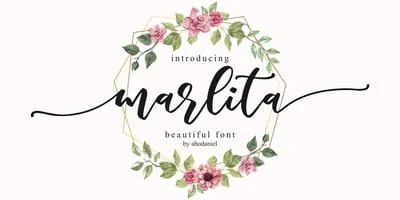
Marlita Font
This elegant script font is perfect for luxury fashion branding, high-end beauty product packaging, sophisticated wedding stationery, premium jewelry marketing, upscale boutique signage, refined cosmetics campaigns, exclusive event invitations, and graceful design projects that celebrate timeless femininity and aristocratic charm.
Marlita Font is exciting because it embodies refined elegance with its graceful letterforms that flow like silk ribbons touched by moonlight. The font delivers sophisticated femininity while maintaining luxurious readability that speaks to discerning tastes and elevated standards.
The Marlita Font family includes regular and ornamental versions with decorative swashes, elegant flourishes, and luxury ornaments, providing designers with comprehensive tools for creating enchanting typography that captivates with aristocratic grace.
Ready to embrace luxurious femininity? Marlita Font offers designers flowing letterforms that dance with sophisticated elegance and refined beauty. This captivating typeface combines luxury aesthetics with professional functionality, making it ideal for high-end fashion houses, luxury beauty brands, and exclusive lifestyle companies. Whether you're designing premium fashion campaigns, luxury wedding invitations, or upscale beauty product packaging, this font delivers aristocratic appeal. The luxuriously scripted characters feature elegant curves while maintaining excellent readability across premium applications. Perfect for businesses in luxury fashion, high-end beauty, exclusive jewelry, and sophisticated lifestyle sectors that celebrate refined taste and elegant femininity. The font's aristocratic construction creates memorable brand recognition that resonates with luxury consumers worldwide. Each letter showcases deliberate grace that mirrors the timeless appeal of sophisticated elegance. Download today and elevate your creative projects with this premium script font that transforms ordinary text into extraordinary expressions of luxury beauty and the enchanting sophistication of Marlita Font elegance.